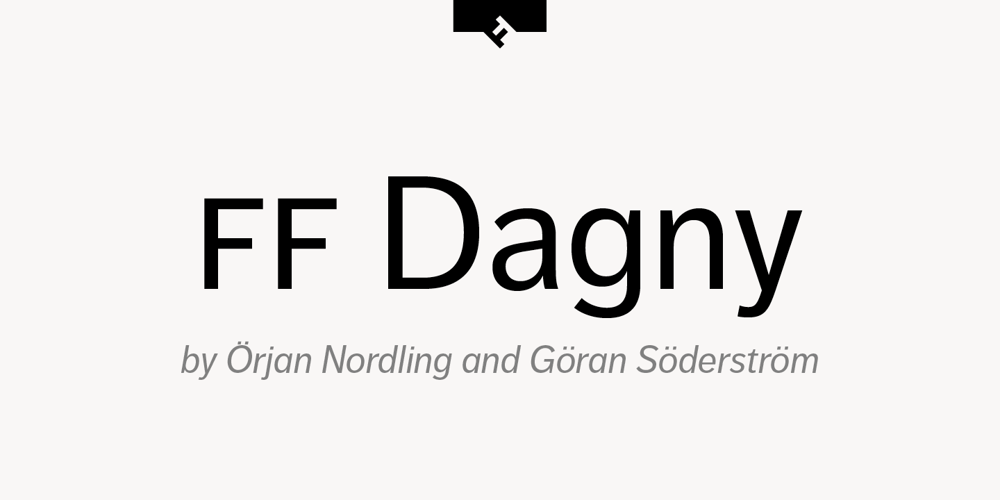
FF Dagny
FF Dagny font
FF Dagny Font Family was designed by Örjan Nordling, Göran Söderström and published by FontFont. FF Dagny contains 12 styles and family package options. Swedish type designers Örjan Nordling and Göran Söderström created this sans FontFont in 2009. The family has 12 weights, ranging from Thin to Black (including italics) and is ideally suited for editorial and publishing, logo, branding and creative industries, poster and billboards, software and gaming as well as web and screen design. FF Dagny provides advanced typographical support with features such as small capitals, case-sensitive forms, fractions, super- and subscript characters, and stylistic alternates. It comes with proportional lining, tabular oldstyle, and tabular lining figures. In 2011, FF Dagny received the ISTD award.